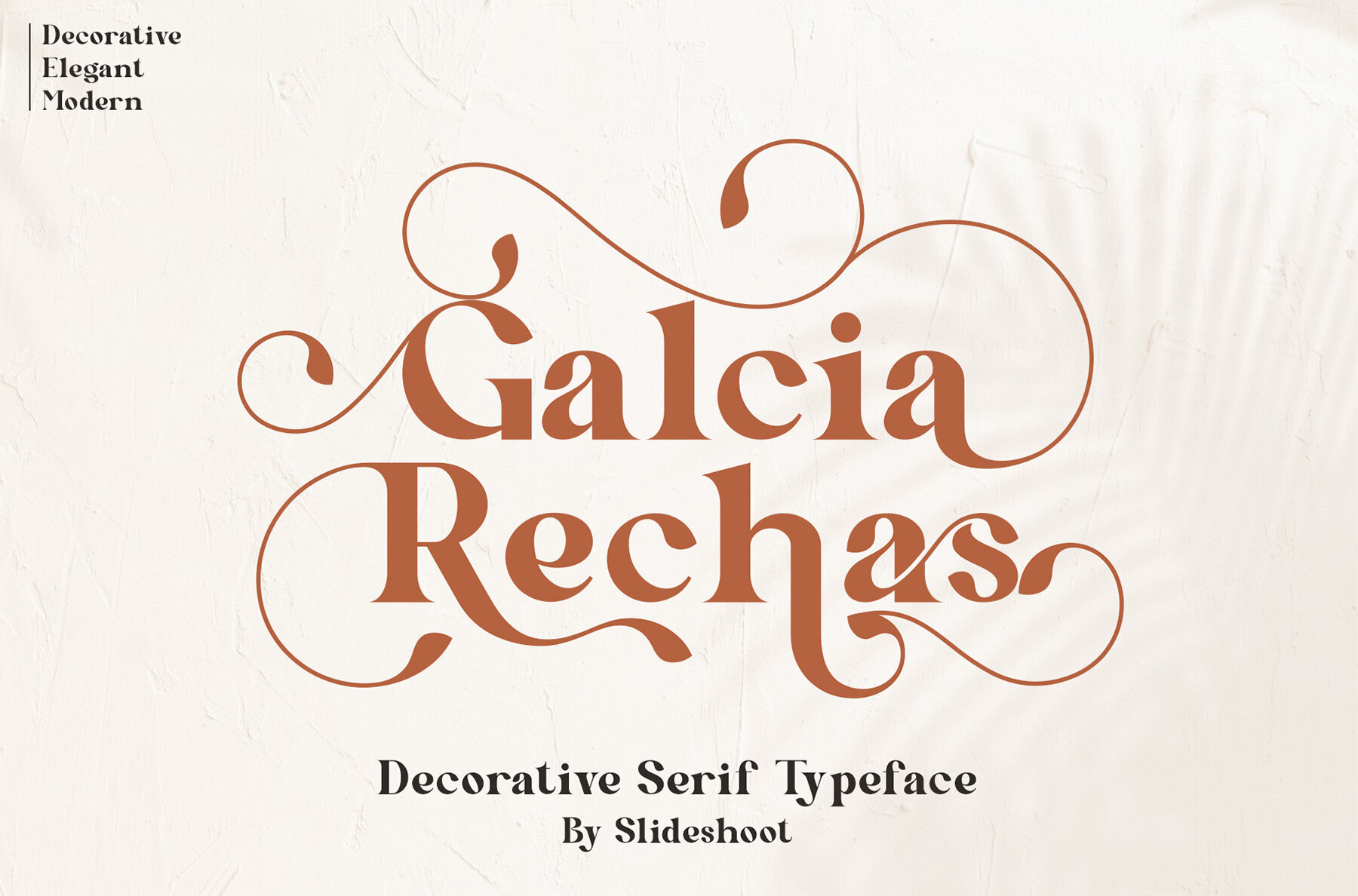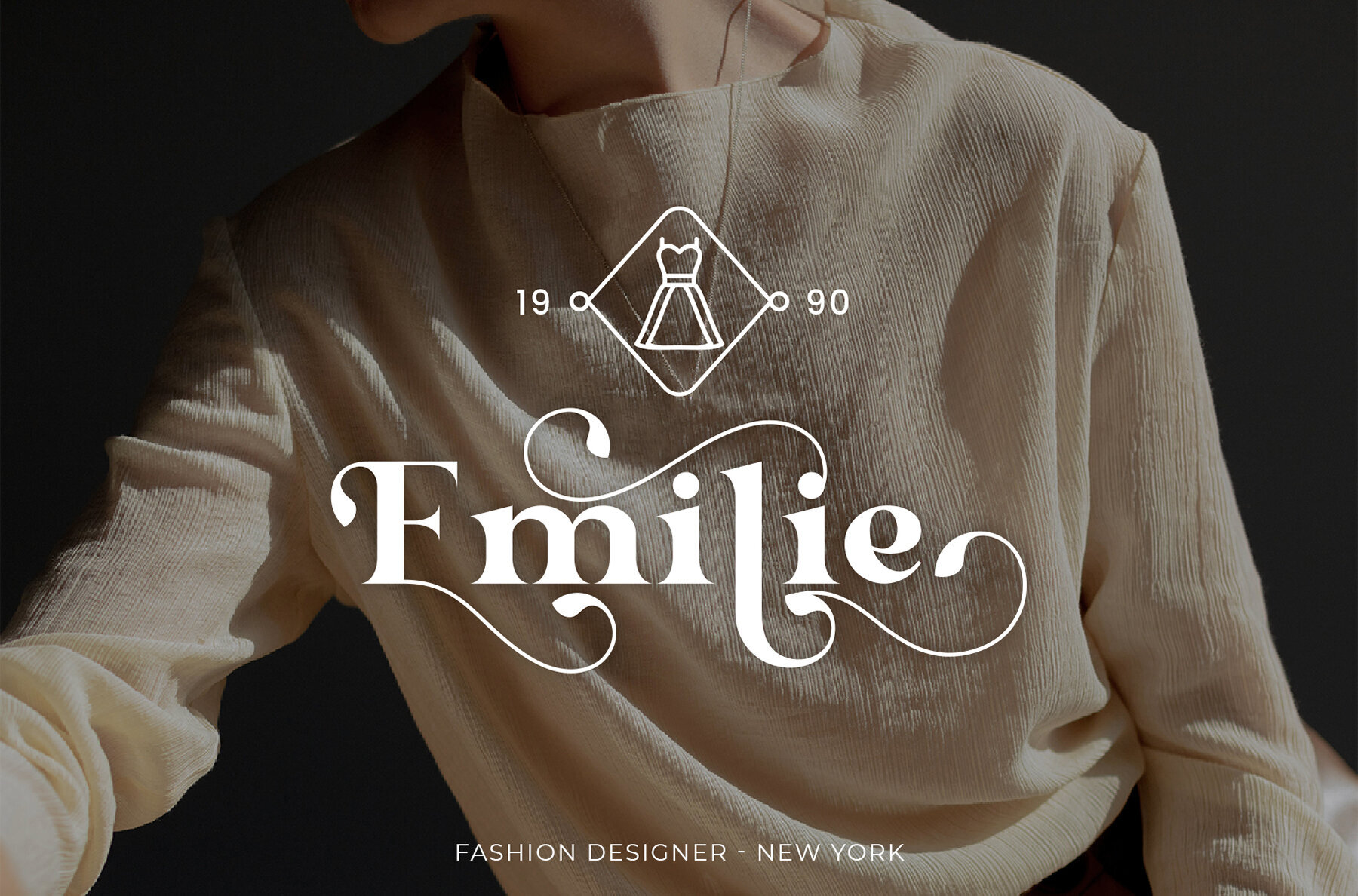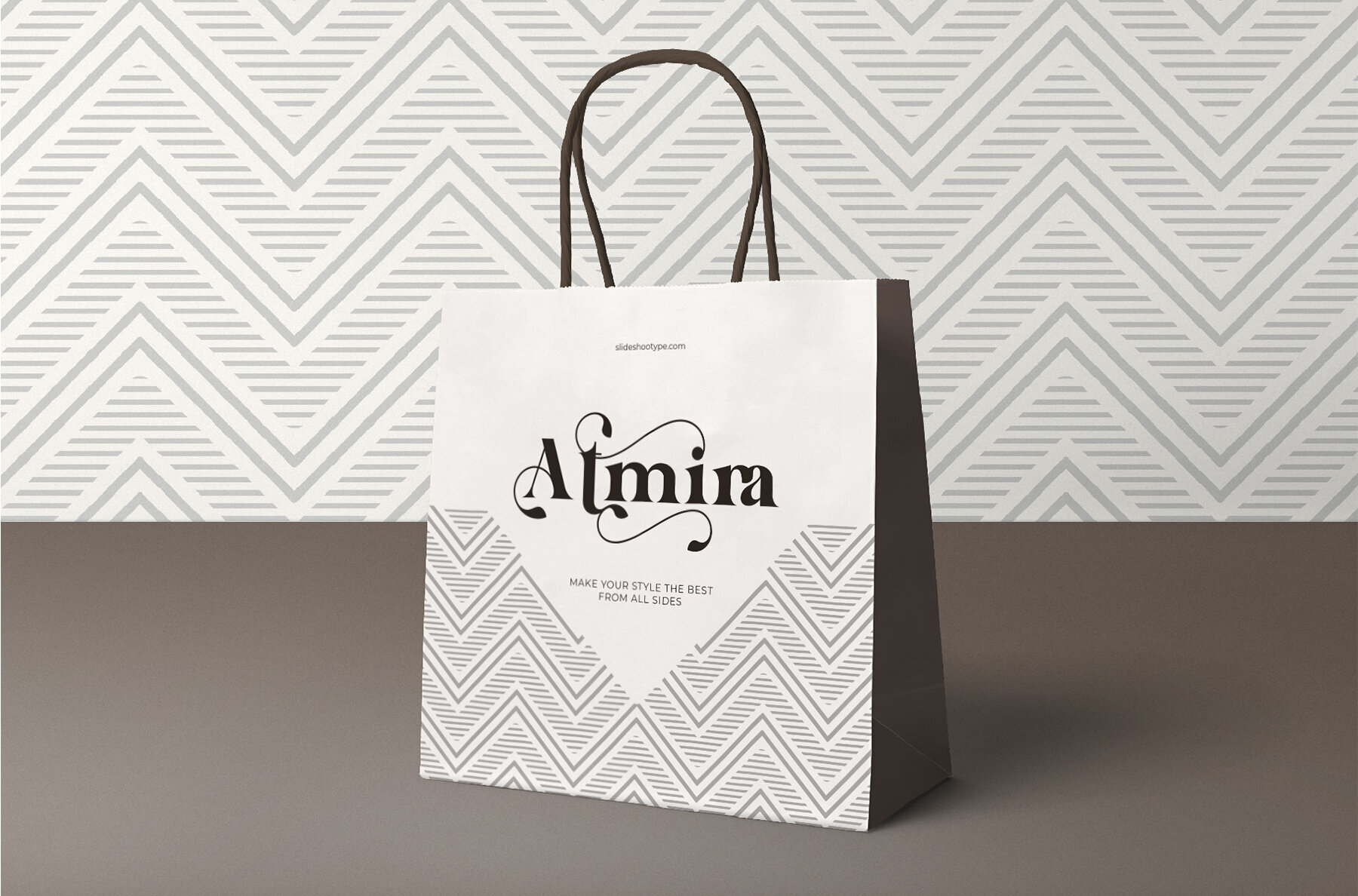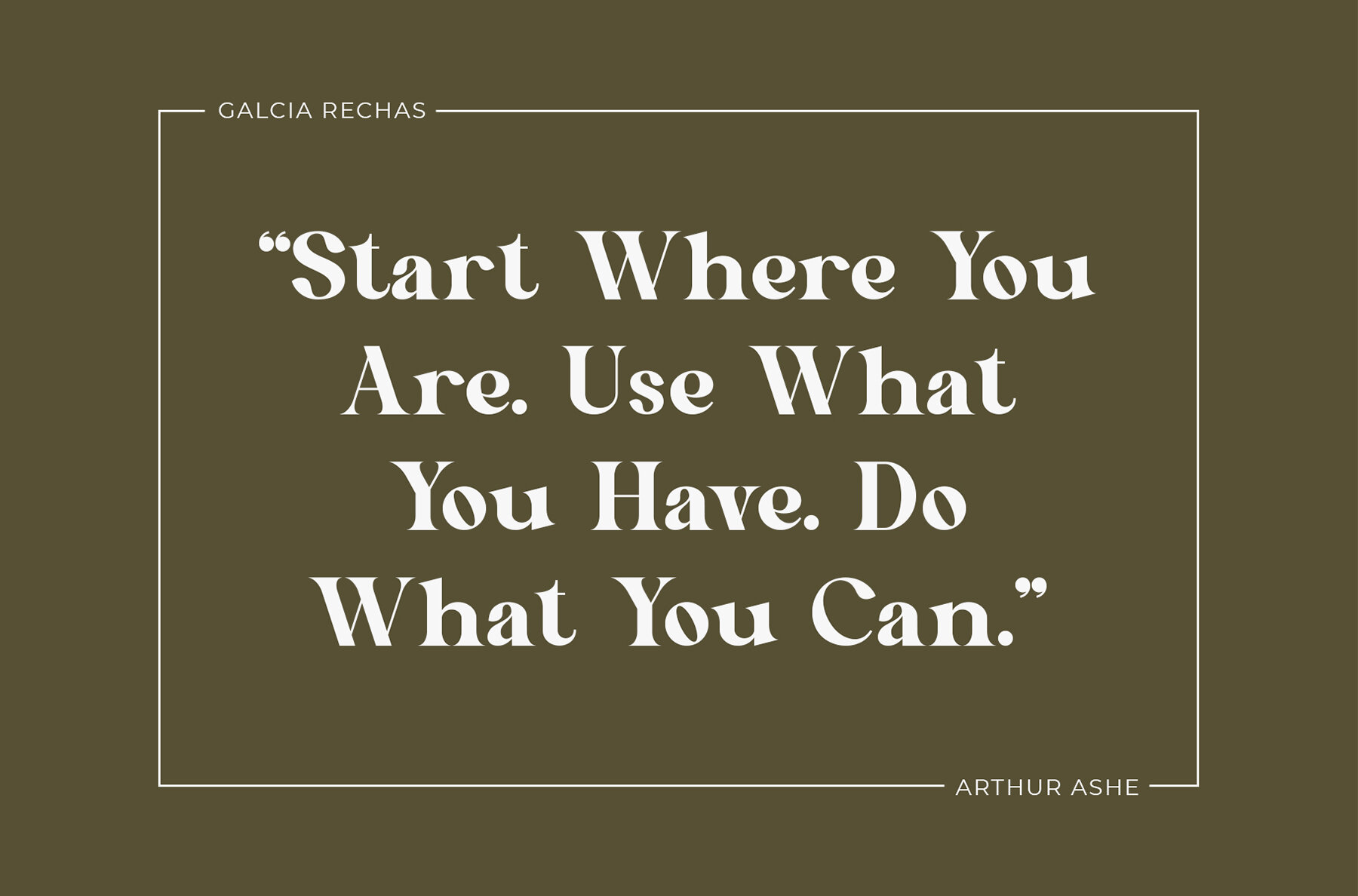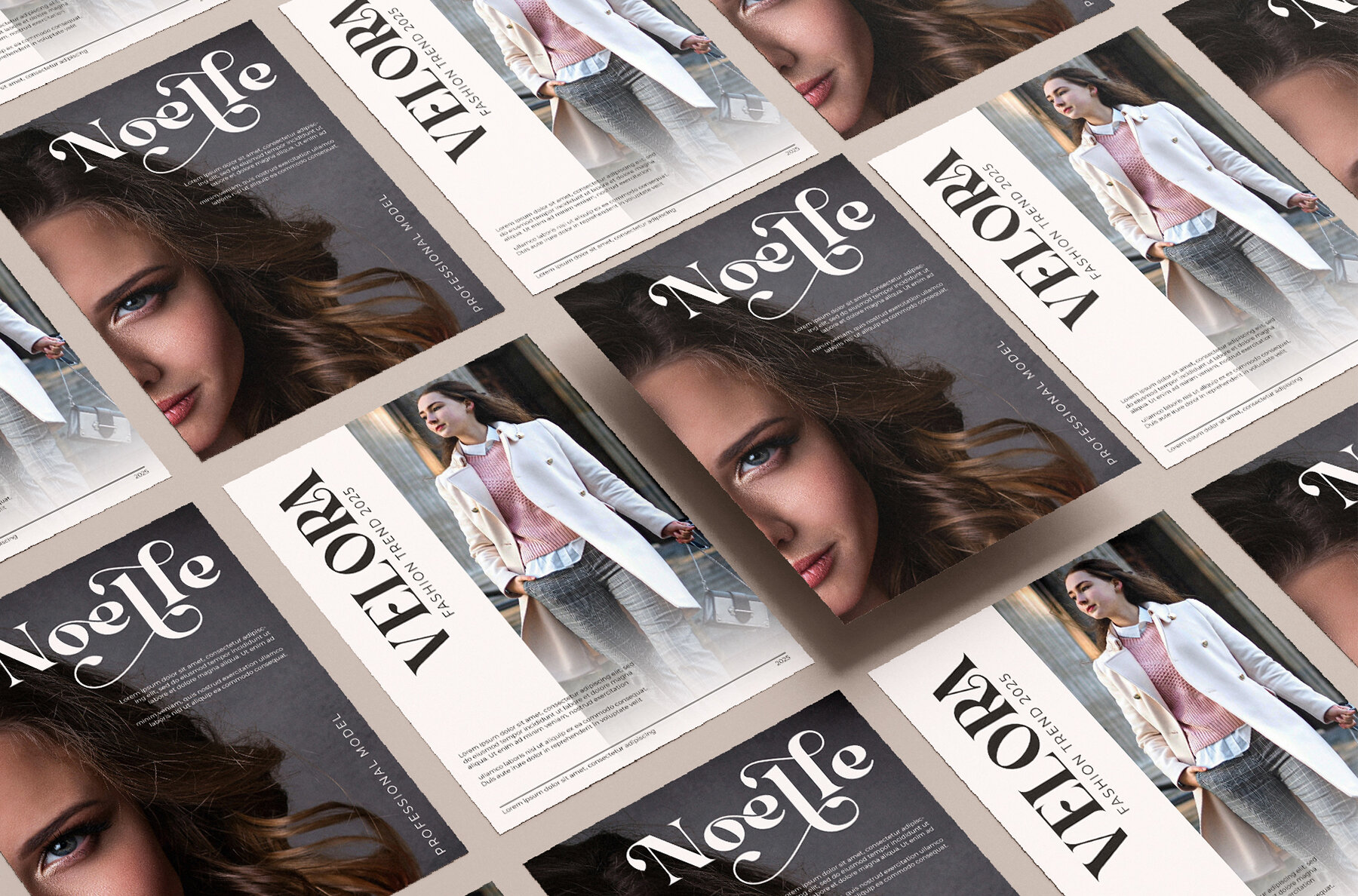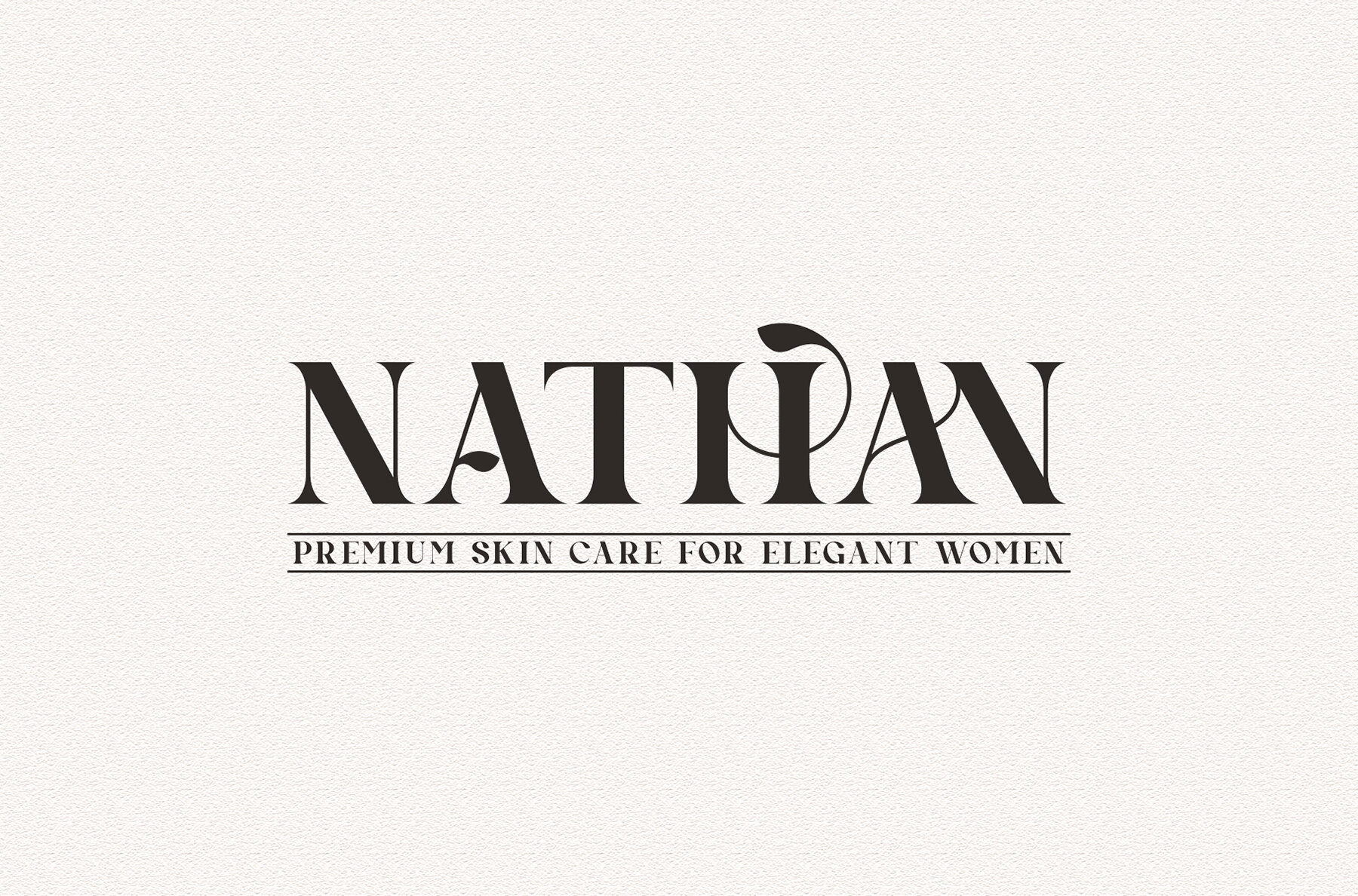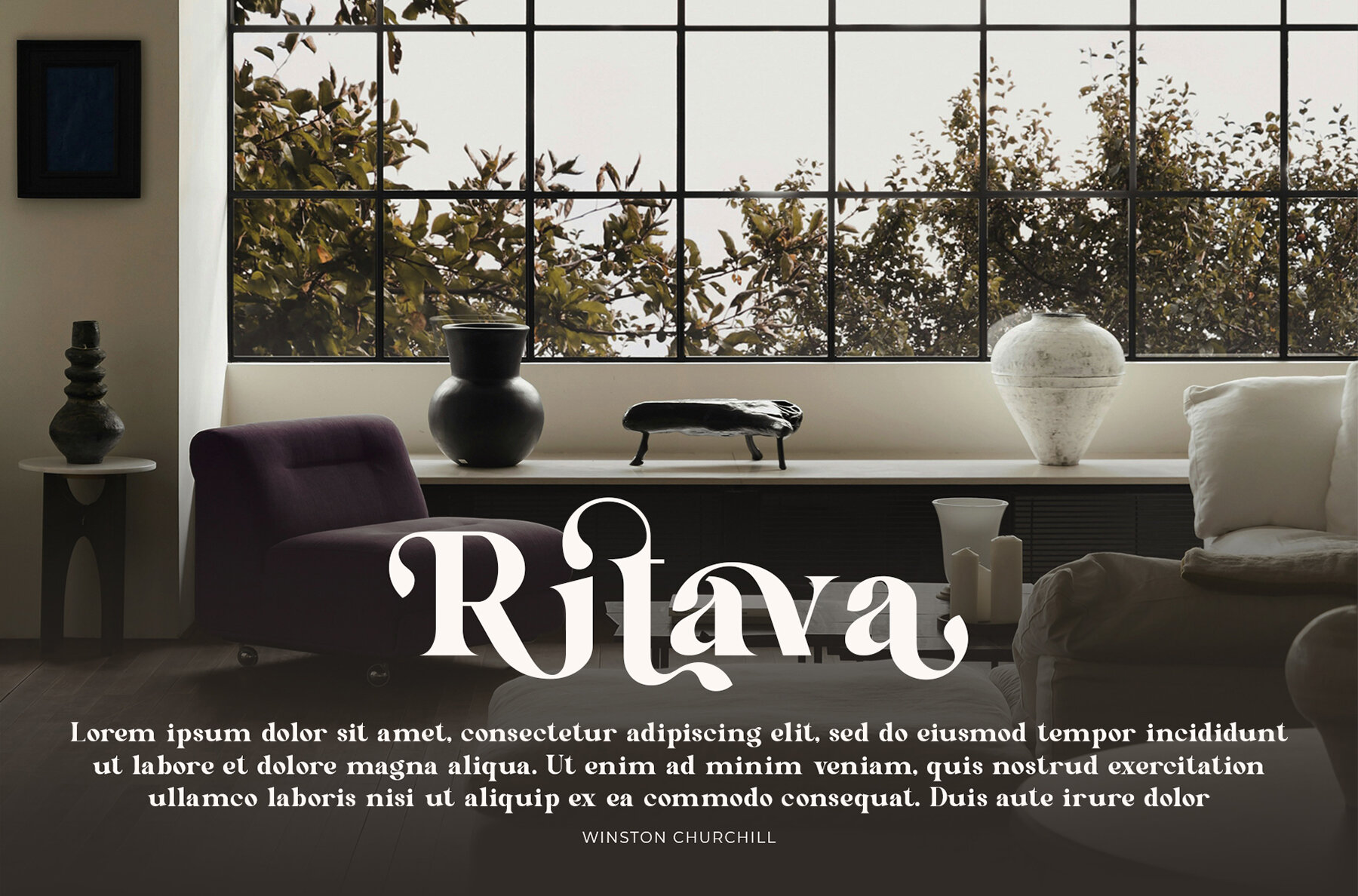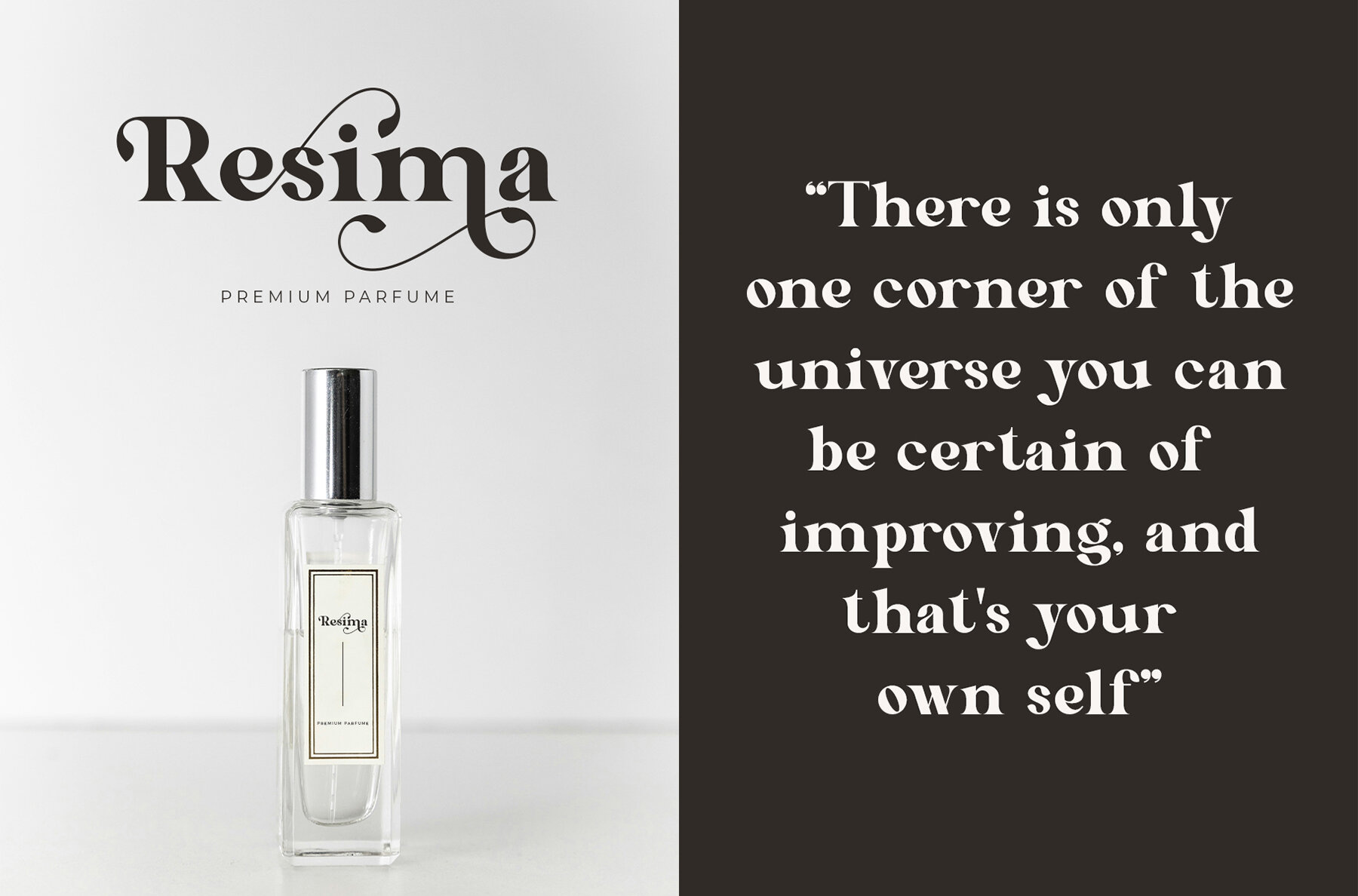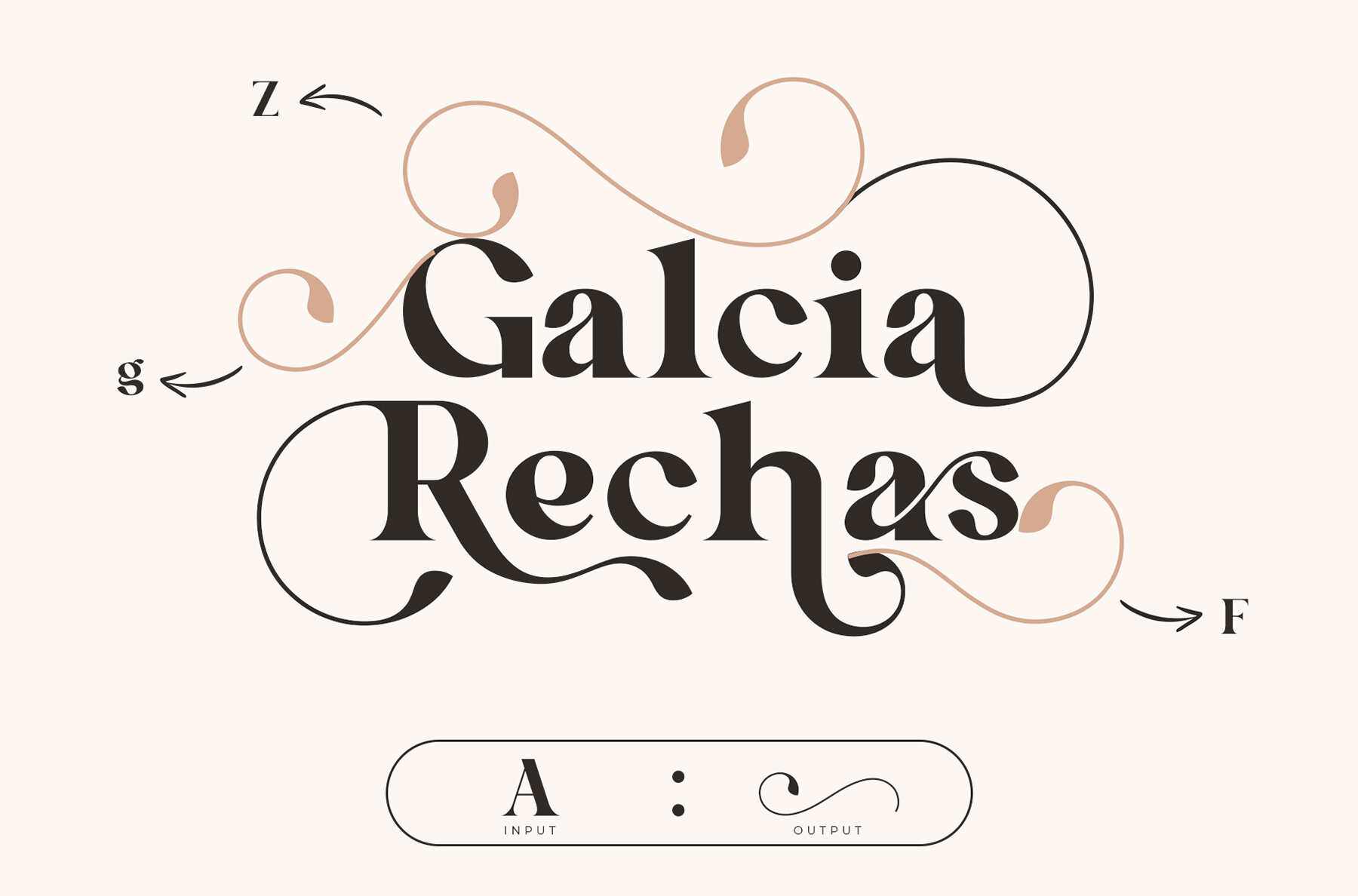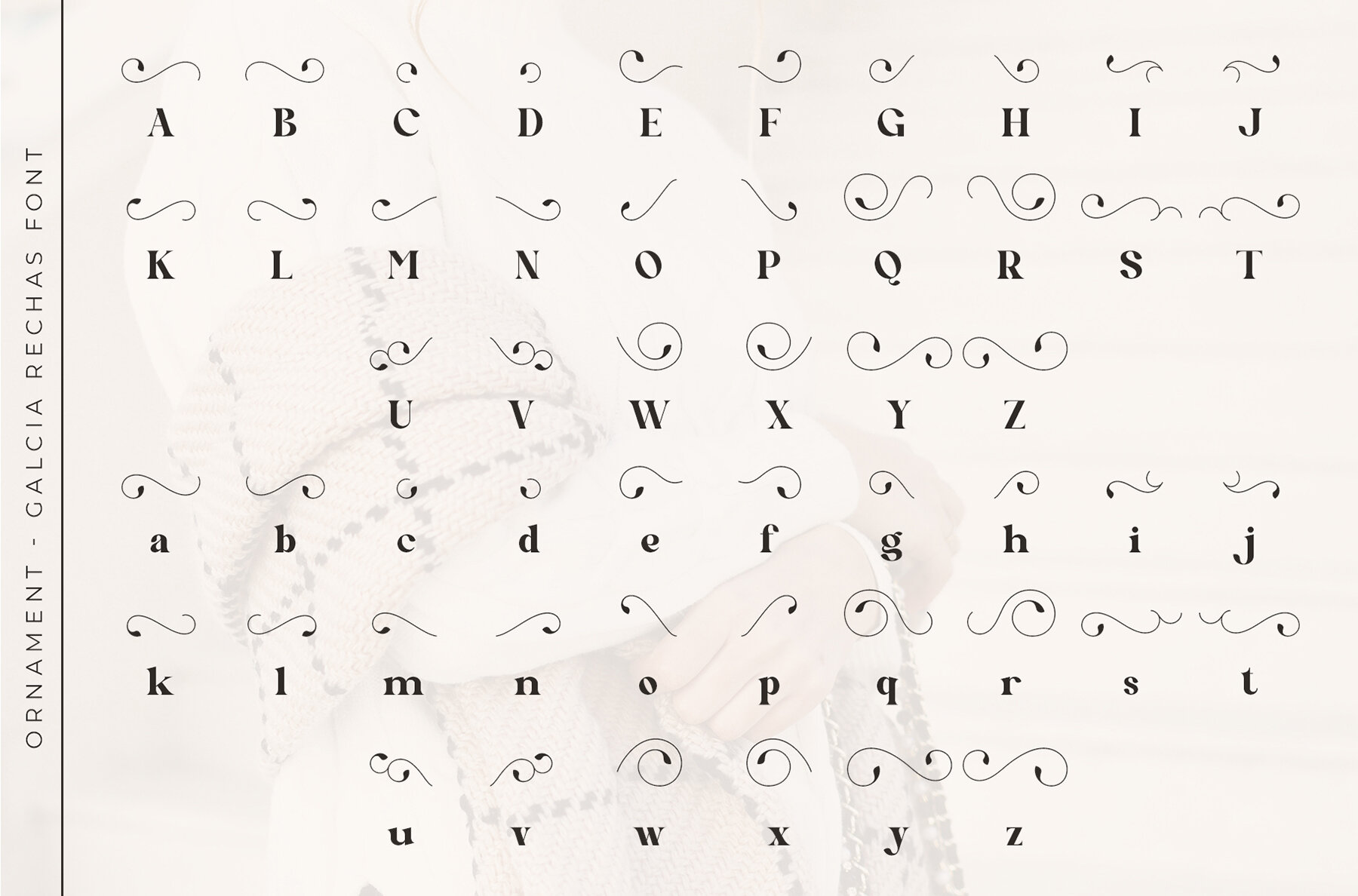
Galcia Rechas Font
Galcia Rechas Serif is a beautifully crafted font that merges elegance with sophistication, making it an ideal choice for designers seeking both style and versatility. Its smooth, balanced serifs add an understated charm to any design project, from invitation cards and company logos to movie titles and business cards. The font’s stylish alternations and ligatures offer a unique touch, enhancing its appeal across various applications.